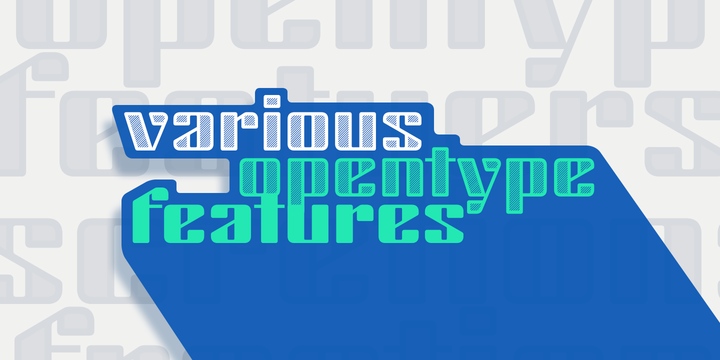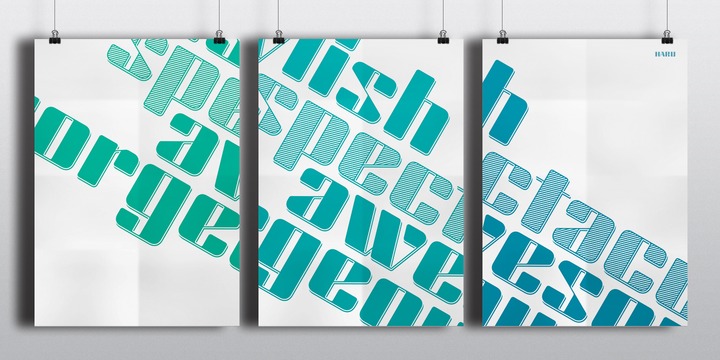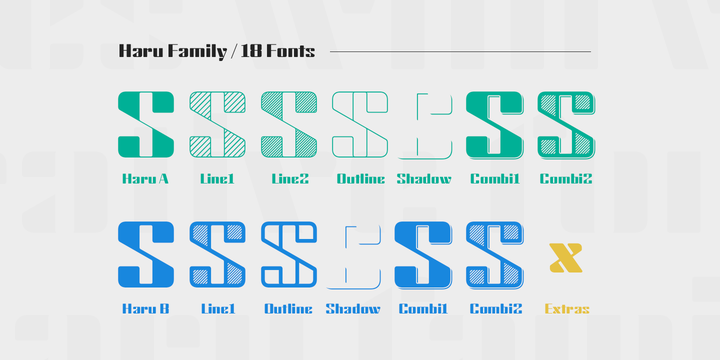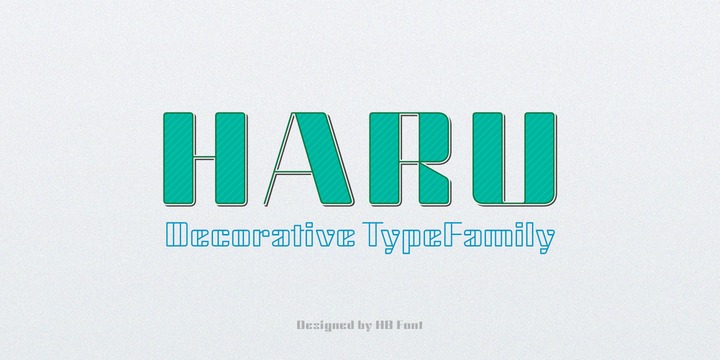
Haru is a high-contrast, decorative typefamily with 18 fonts. This family provides an advanced typographical support with features such as Proportional Figures, Tabular Figures, Case-Sensitive, Numerators, Denominators, Superscript, Scientific Inferiors, Subscript, Fractions, Standard Ligatures and Discretionary Ligatures.
Its unique shape and various combination will contribute to your impressive and distinctive title.